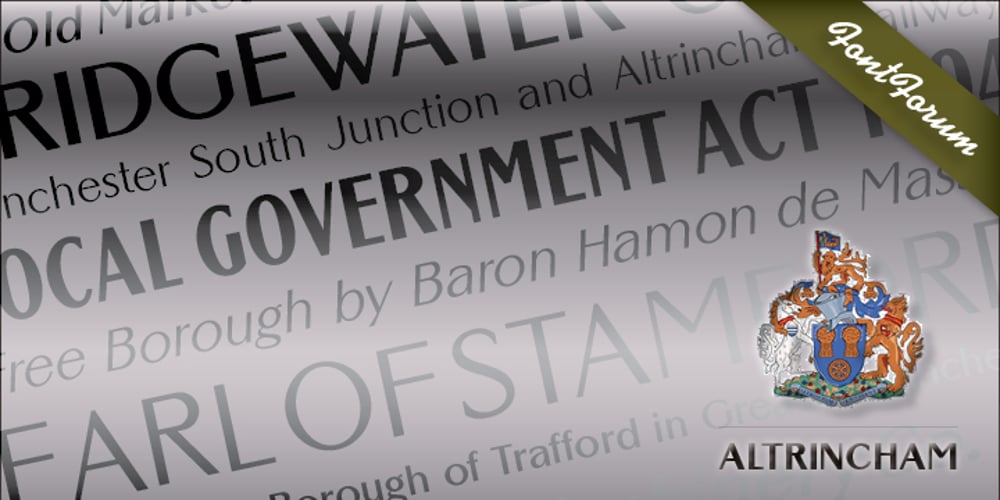
Altrincham Font Family was designed by Coen Hofmann and published by URW Type Foundry. Altrincham contains 13 styles and family package options. Back when shop window decoration was done with a brush, every window designer had his own style. In this vein the sans serif Altrincham was created. But even as a text font, it has stood the test of time, since it is very easy to read even in smaller point sizes, thanks to its relatively large x-height. With the Altrincham Condensed and Altrincham Wide Bold two other fonts have been created to perfectly complement the font family.